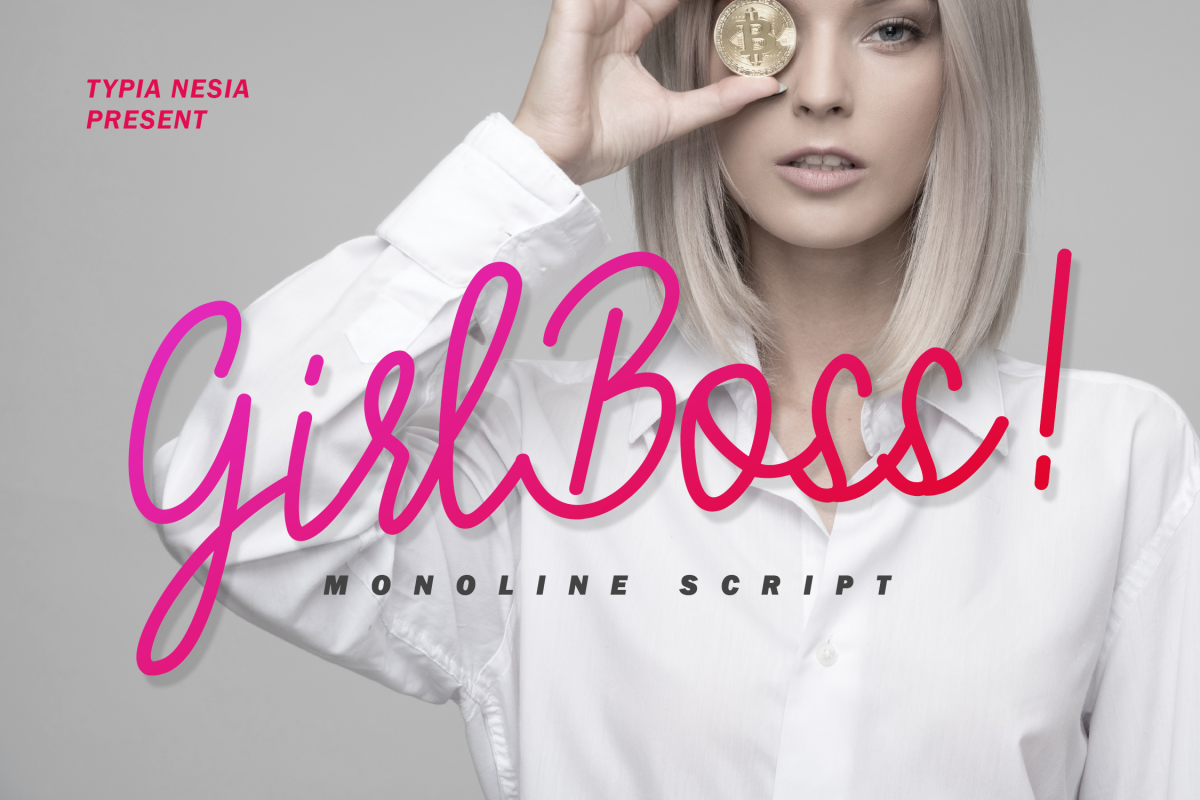
Girl boss is a romantic handwritten monoline script font.
It is suitable for any design needs, modern invitation design, branding, stationery design, blog design, modern advertising design, invitation, Art Quote, Home decor, Book/Cover Title, Invitation, special events, birthday, custom mug, pillow, t-shirts, any brush lettering needs and more.
Girl Boss